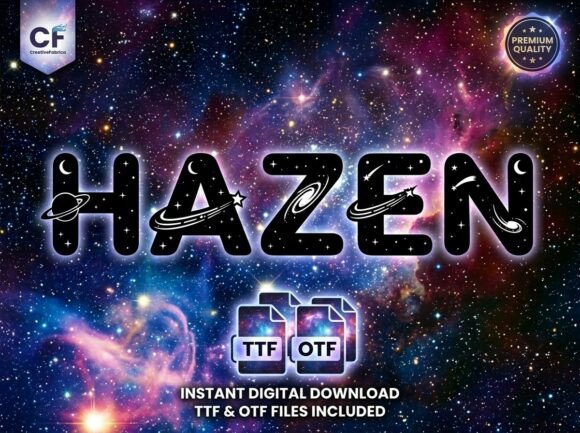
Hazen: A Playful Display Typeface for Bold Digital Headlines
It started with a hero section that felt… safe. Too safe. I was refreshing the homepage for a small creative coaching business—clean layout, thoughtful spacing, strong imagery—but the headline just didn’t land. It read like every other service page out there. So I swapped in Hazen, typed “Clarity Starts Here,” and hit preview. Instant lift. Not louder—but *brighter*. Like swapping a matte finish for soft gloss. That’s when I knew Hazen wasn’t just decorative—it was a subtle but powerful tone-setter for digital presence.
What Hazen Brings to the Screen (Beyond Whimsy)
Hazen is a display typeface built for impact—not endurance. Its thick, rounded uppercase forms feel friendly and grounded, yet its playful proportions and cosmic-inspired openness give it unexpected depth. Think of it as a modern block font with breathing room: generous counters, smooth curves, and consistent stroke weight that holds up beautifully at larger sizes. It’s not retro, not futuristic—it’s quietly confident, like a well-designed logo that feels both handmade and intentional.
On screen, Hazen shines where attention matters most: hero headlines, section titles, CTA buttons, and brand statements. It doesn’t try to be everything—it knows its role. And because it’s designed as a display font, it avoids the pitfalls of over-engineered novelty fonts: no awkward kerning traps, no fragile details that vanish on mobile, and no unintended visual noise in tight layouts.
How It Performs in Real Web Layouts
I tested Hazen across three responsive scenarios: a portfolio site’s animated intro, a course sales page’s key benefit headers, and a boutique online store’s seasonal banner. In each case, it delivered clarity without sacrificing character.
- Hero sections: At 48–64px on desktop and 32–40px on mobile, Hazen remains highly legible—even over textured image overlays. Its open letterforms prevent visual crowding, and its even weight ensures fast scanning.
- Landing page headers: Used for benefit-driven subheads (“Your First Session, Fully Supported”), Hazen added warmth and approachability without undermining professionalism. Paired with a neutral sans serif (like Inter or Poppins), it created clear hierarchy—no competing tones.
- CTA buttons: At 20–24px, it held up surprisingly well. The rounded terminals soften sharp interactions, making “Get Started” feel inviting rather than demanding. Just avoid ultra-narrow widths—Hazen needs space to breathe.
One note on performance: Hazen comes in clean webfont formats (WOFF2 included), and its single-weight design keeps load times minimal. No need to serve multiple weights unless you’re pairing it intentionally with a companion font for contrast.
Where Hazen Fits—and Where It Doesn’t—in Digital Design
Hazen excels in moments that ask users to pause, connect, and remember. It’s ideal for:
- Branded blog headers and newsletter banners
- Course landing page titles and module labels
- Portfolio project names and category tags
- Digital brand kits (as a primary display option alongside a functional body font)
- Social media graphics exported from Figma or Webflow (especially Instagram carousels and promo banners)
But let’s be practical: Hazen isn’t built for long-form reading. Avoid it for body copy, form fields, navigation menus, or accessibility-critical elements like error messages. Its charm lives in brevity—so use it for short, high-impact phrases: names, values, promises, and invitations.
I also found it less effective on very dark backgrounds with low contrast—its soft edges can blur slightly without enough luminance separation. A light stroke or subtle text shadow (1px, same color as background) solves this instantly in CSS.
Smart Pairings & Practical Implementation Tips
Hazen thrives in contrast. My go-to pairing is a warm, humanist sans serif—something like Manrope or Figtree—for body text and UI labels. Their clean geometry lets Hazen sparkle without visual competition. For more editorial or luxury-leaning sites, a gentle serif like Playfair Display (light or regular) adds sophistication while keeping balance.
Before deploying, always check:
- Language coverage: Hazen includes extended Latin characters, so it works well for English, Spanish, French, and German—ideal for small international audiences.
- Alternates & features: While Hazen is intentionally focused (no swashes or stylistic sets), its consistency across glyphs means predictable spacing and alignment—critical for responsive typography.
In practice, I now treat Hazen like a signature accent: one trusted tool I reach for when a project needs personality with precision. It won’t fix weak messaging—but it will make strong messaging feel unmistakably *yours*.
If your digital presence leans into creativity, warmth, or human-centered values, Hazen isn’t just another display font. It’s a quiet collaborator—one that helps your audience feel seen before they’ve even scrolled past the fold.